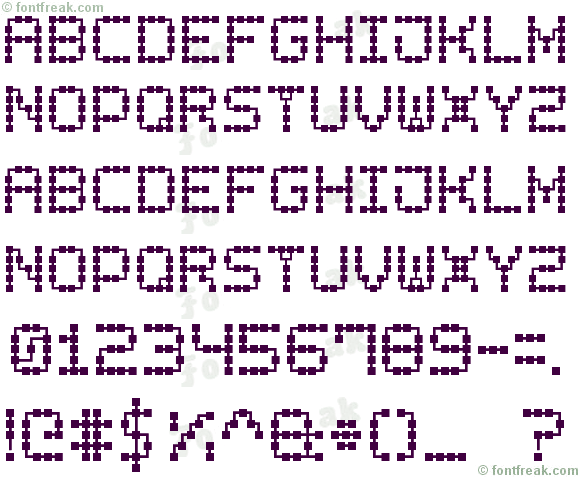
Printed Circuit Board-7
About Printed Circuit Board-7
Printed Circuit Board-7 by Style-7 is a distinctive display font that captures the essence of technology and innovation. Characterized by its pixelated, grid-like structure, this font mimics the intricate patterns found on actual circuit boards. The visual style is marked by uniform stroke weights and minimal contrast, creating a cohesive and modern appearance. The spacing between characters is tight yet balanced, ensuring readability while maintaining a unique aesthetic. This font stands out with its decorative elements that resemble electronic components, making it perfect for themes related to technology, engineering, and digital design.
Ideal use cases for Printed Circuit Board-7 include technology-themed posters, website headers for tech startups, invitations to coding workshops, and promotional materials for electronics stores. Its playful yet professional vibe is also suitable for gaming graphics, making it a versatile choice for designers looking to add an edgy touch to their projects. The font’s unique character set appeals to graphic designers, small business owners, and content creators who are eager to make a statement with their typography.
What sets the Printed Circuit Board-7 font apart is its ability to blend functionality with creativity. It effortlessly evokes a sense of modernity and precision, resonating with audiences who appreciate the fusion of art and technology. This font serves not only as a visual element but also as a conversation starter, inviting viewers to delve deeper into the ideas it represents. For those looking to enhance their projects with a touch of tech-inspired flair, the Printed Circuit Board-7 font free download is an excellent choice.